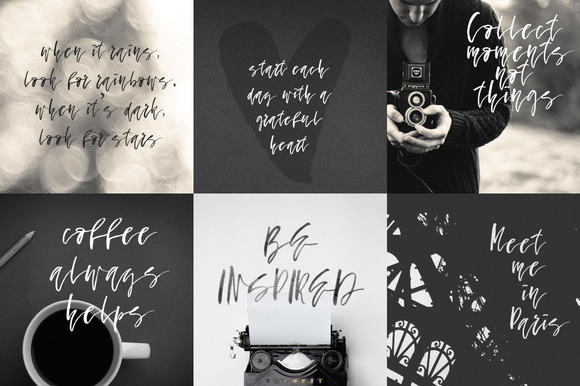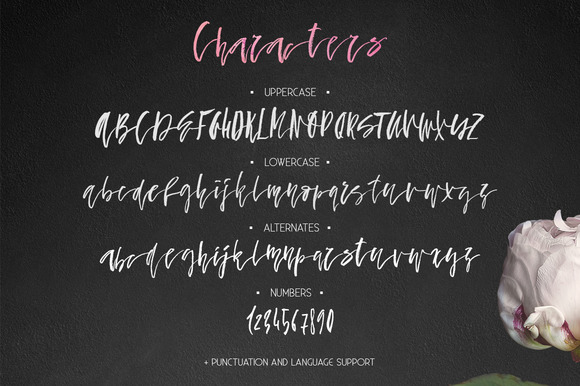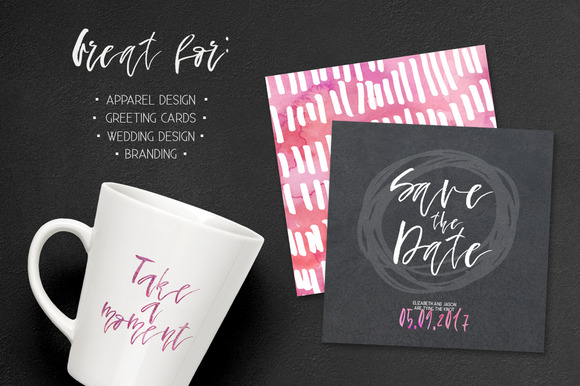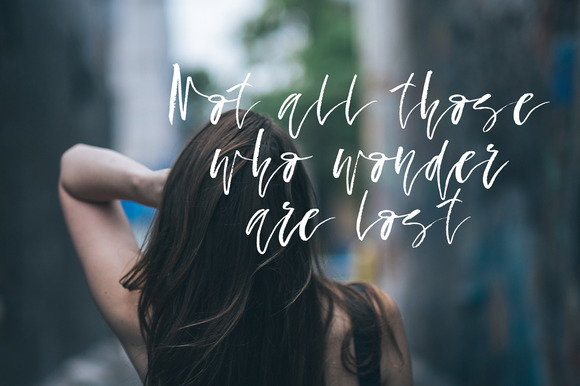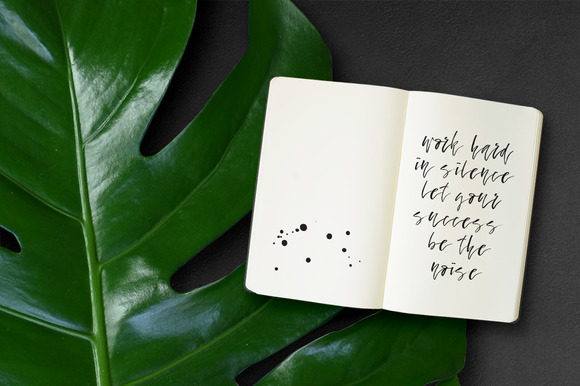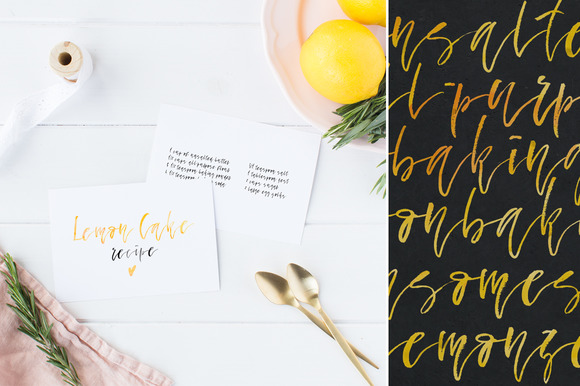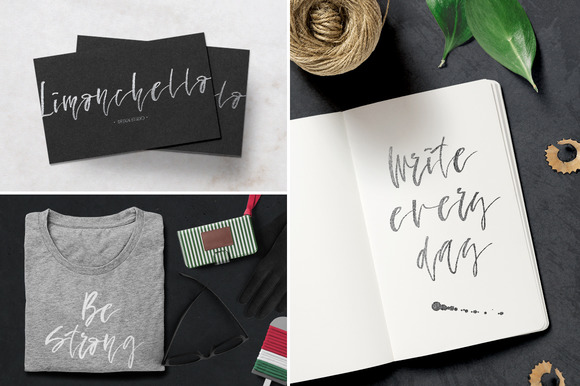
HomeScript FontsFallen Angel Font Script Fonts Fallen Angel Font FacebookXPinterestWhatsApp Fallen Angel Font Poster 2 Fallen Angel Font Poster 3 Fallen Angel Font Poster 4 Fallen Angel Font Poster 5 Fallen Angel Font Poster 6 Fallen Angel Font Poster 7 Fallen Angel Font Poster 8 About Fallen Angel Font This modern calligraphic type has a very strong personality and features a unique baseline. DOWNLOAD NOW People also explored Hello Violetta Font Monogram Font Sublimation Font Brooklyn Font Authemia Font Black Brown Poster Frame Mockup with Cornflower Adekins Font Splats Font Chilly Bay Font 340 0 TagsFallen Angel Font Previous articleHaiti FontNext articleEmerald Font LEAVE A REPLY Cancel reply Comment: Please enter your comment! Name:* Please enter your name here Email:* You have entered an incorrect email address! Please enter your email address here Website: Save my name, email, and website in this browser for the next time I comment. Personal Use Free Kaysan Personal Use Free Read more about this font Equestrain Personal Use Free Read more about this font Cadosa Personal Use Free Read more about this font Bosk Personal Use Free Read more about this font BLOG Top 10 Handwritten Fonts That Elevate Your Designs Top 10 Handwritten Fonts That Will Elevate Your Designs Handwritten fonts bring a warm, personal touch to every creative project. Whether you're designing logos, invitations,... How to Install and Use Fonts on Windows, macOS, and Web Projects The 10 Best Handwriting Fonts to Add Personality to Your Designs Fonts That Capture the Spirit of New York City